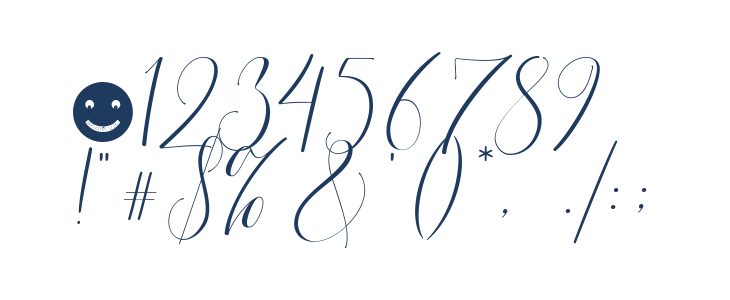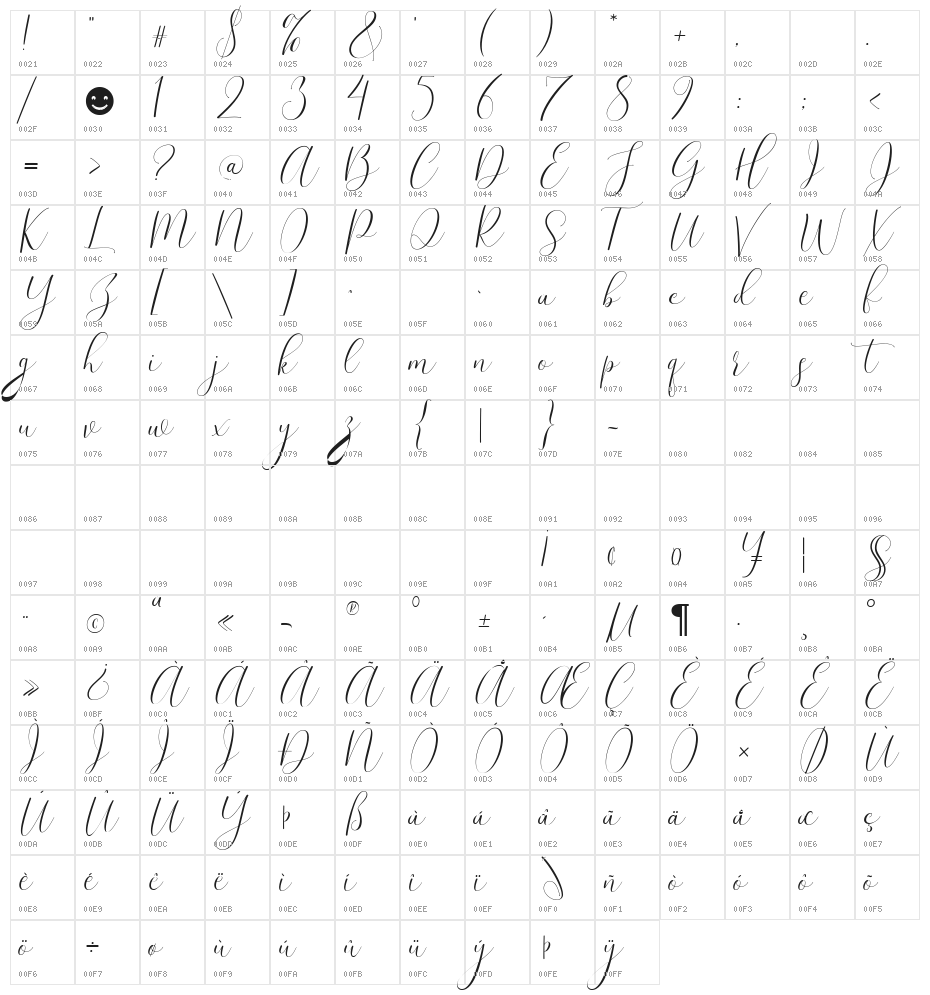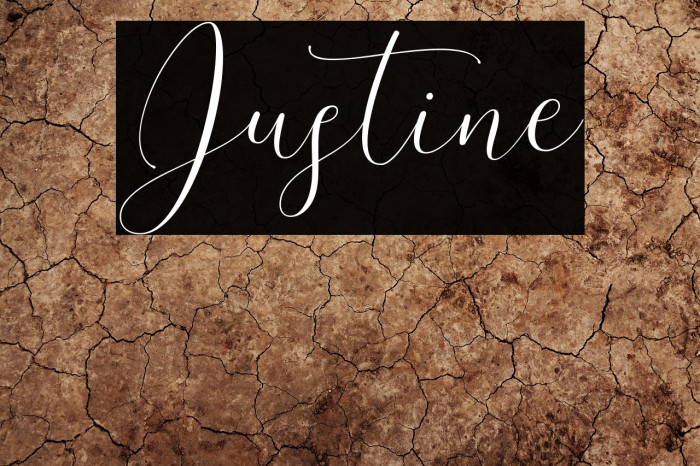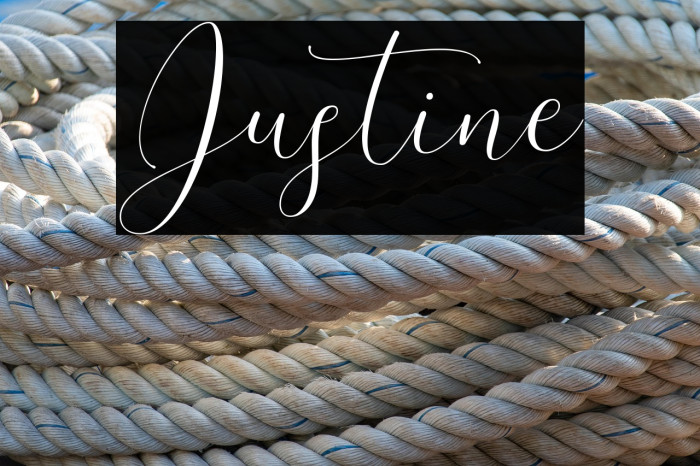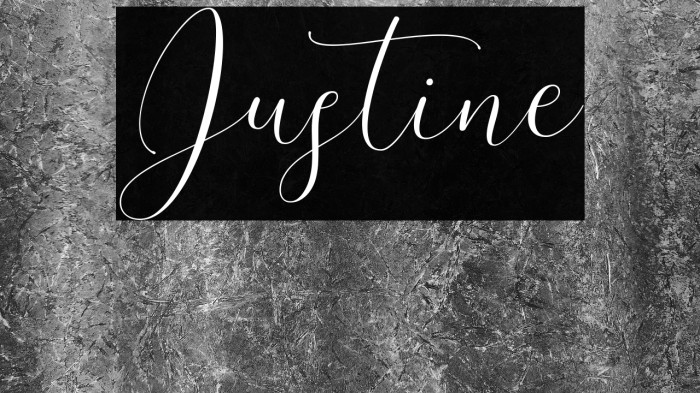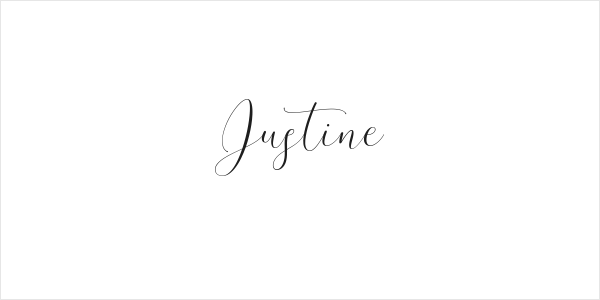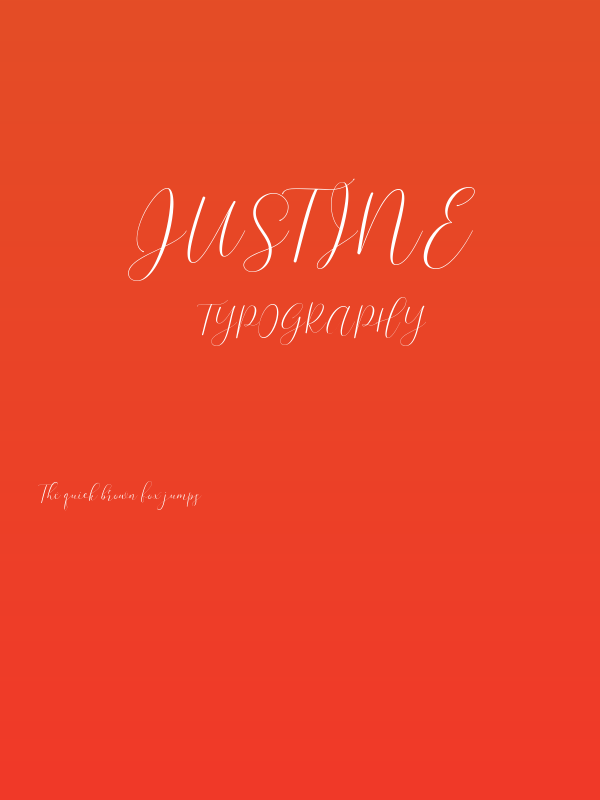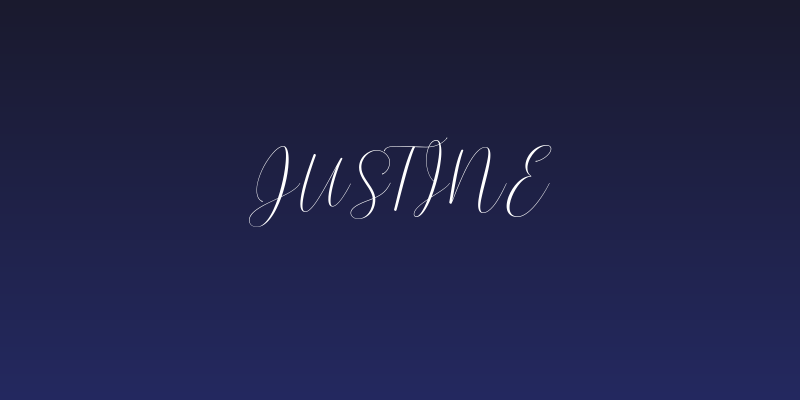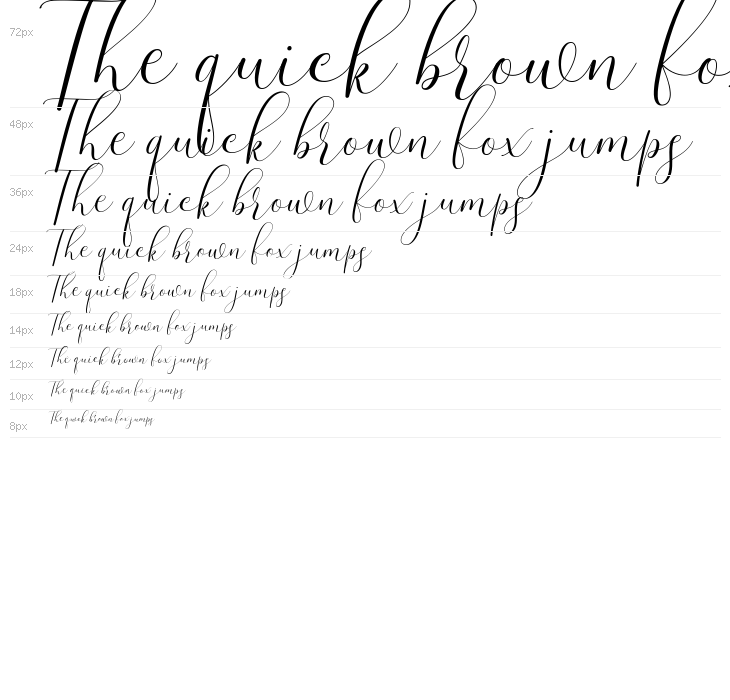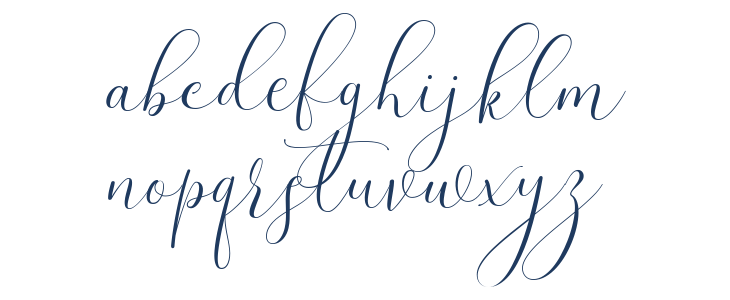
Justine Font
Justine Description
This elegant script font features flowing, cursive letters with a graceful and sophisticated appearance. The uppercase letters are tall and slender, with delicate loops and swashes that add a touch of flair. The lowercase letters maintain a consistent style, with smooth, connected strokes that enhance readability while preserving the font's decorative nature. Numbers and special characters are designed to complement the alphabet, maintaining the same fluidity and elegance. This font is perfect for projects that require a touch of class and refinement, such as wedding invitations, formal event programs, or luxury branding.
| Overall Style | Elegant, Decorative |
| Use Case | Headlines, Invitations, Branding |
| Proposed Projects | Ideal for wedding invitations, formal event programs, luxury branding, and elegant stationery. |